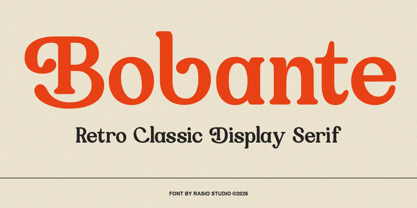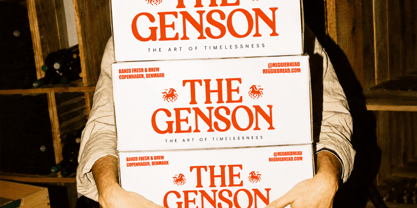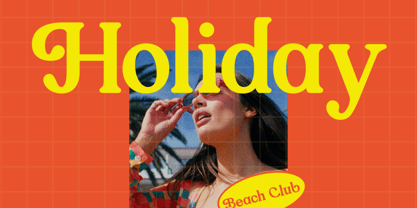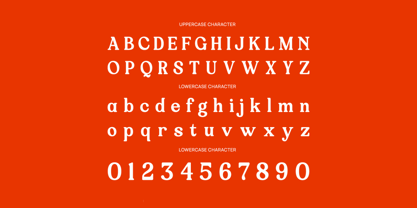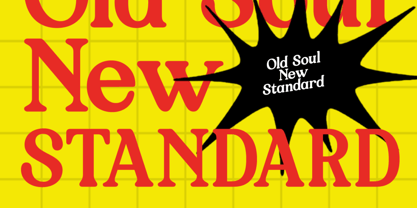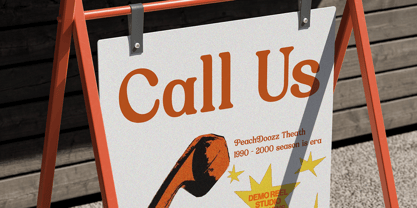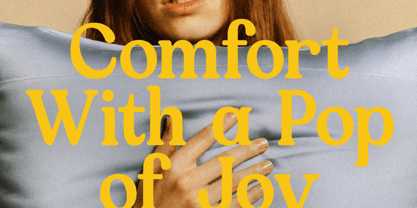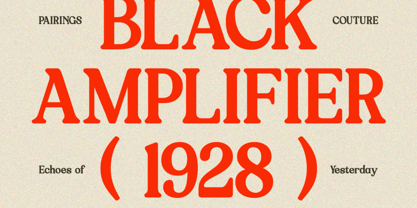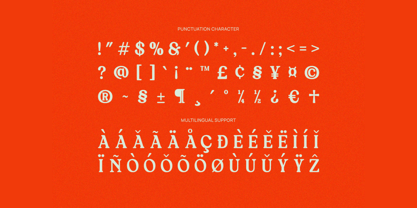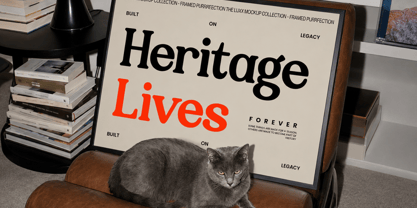
Bobante
by Rasio Studio
The Bobante Font Family was designed by Fajar Indra and published by Rasio Studio. Bobante contains 1 styles. More about this family
Bobante is a retro classic display serif typeface that captures the warmth and charm of vintage typography with a refined contemporary finish. Inspired by mid-century advertising, nostalgic editorial design, and timeless print craftsmanship, the font features bold serif construction, soft rounded terminals, and graceful curves that create an inviting yet confident visual personality.